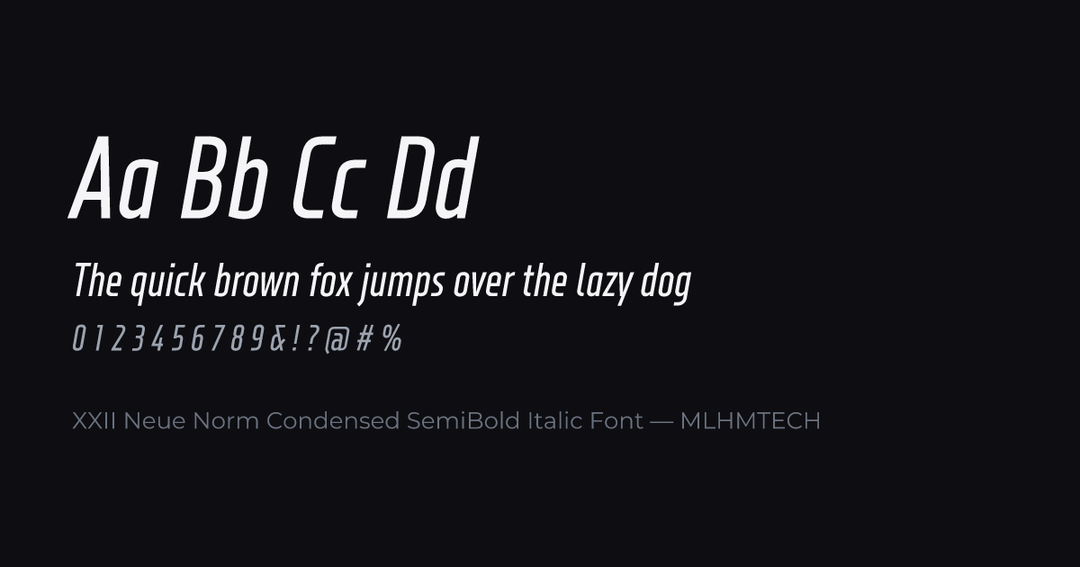
XXII Neue Norm Condensed SemiBold Italic Font
A modern condensed sans-serif font with a semi-bold italic weight, ideal for impactful headlines and contemporary designs.
XXII Neue Norm Condensed SemiBold Italic is a refined sans-serif typeface that combines a condensed structure with a dynamic italic slant. Its semi-bold weight ensures strong legibility even at small sizes, while the condensed form allows for efficient use of space in layouts.
This font is perfect for editorial design, branding, posters, and video titles where a modern, confident look is required. The italic style adds a sense of motion and energy, making it a versatile choice for both print and digital media.